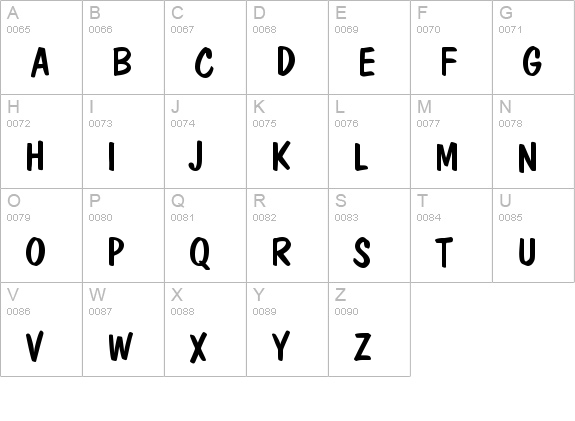
DomCasualD Font Details
DomCasualD font is a whimsical and playful typeface that exudes a sense of casual charm and friendliness. With its rounded edges and unique letterforms, this font is perfect for adding a touch of fun and personality to any project. Whether you're designing a greeting card, poster, or logo, DomCasualD is sure to make your text stand out. The best part? DomCasualD font is completely free to download at FontsMarket.com. This means you can start using this delightful font in your designs without any cost. So why wait? Add a touch of whimsy to your projects today with DomCasualD font.